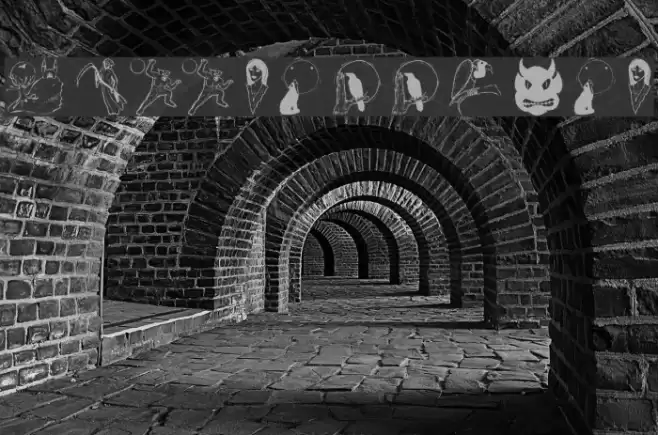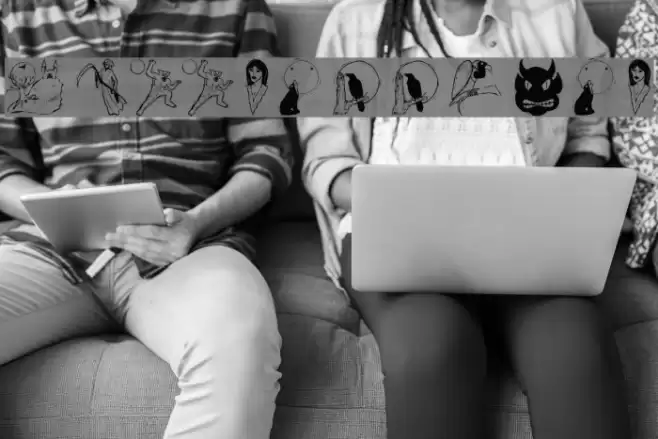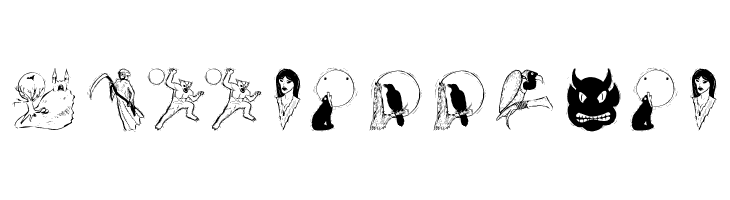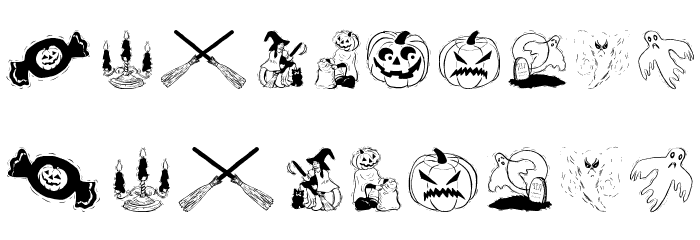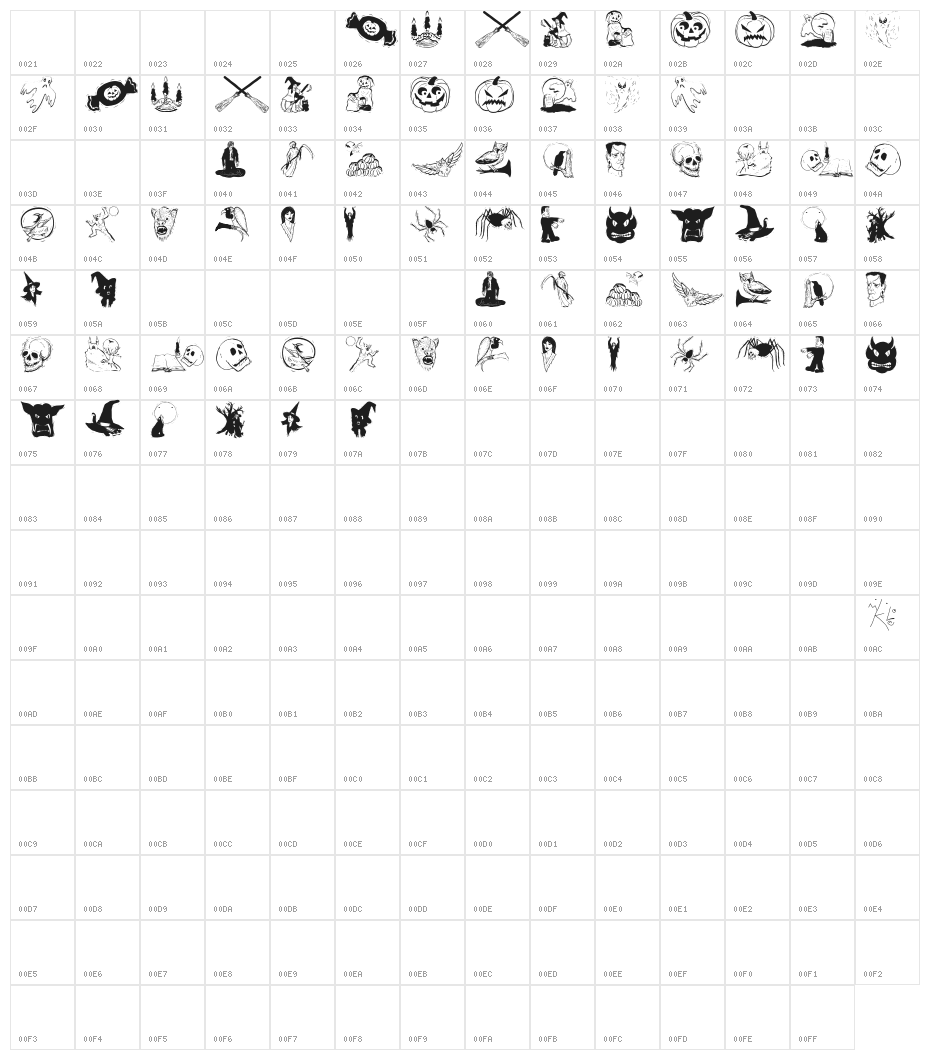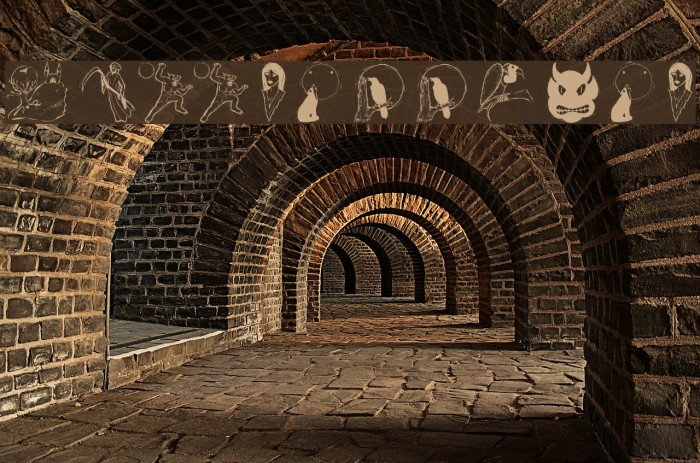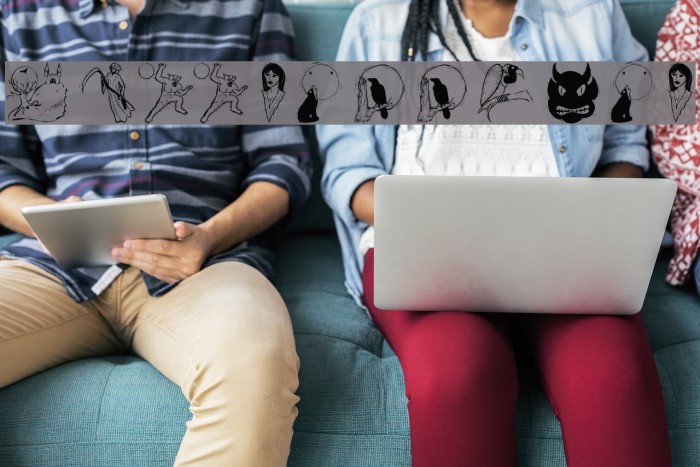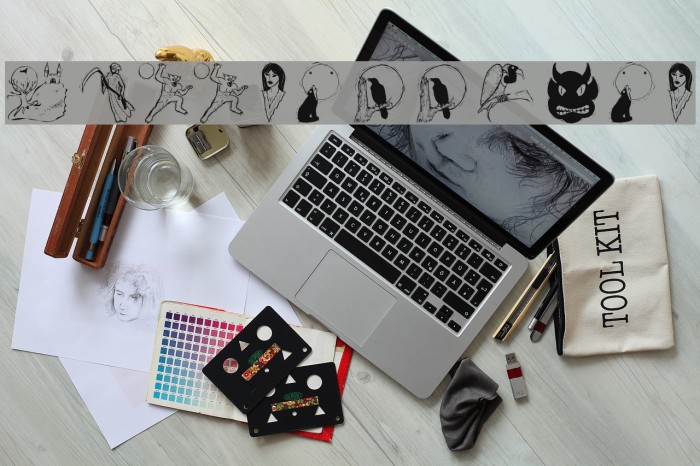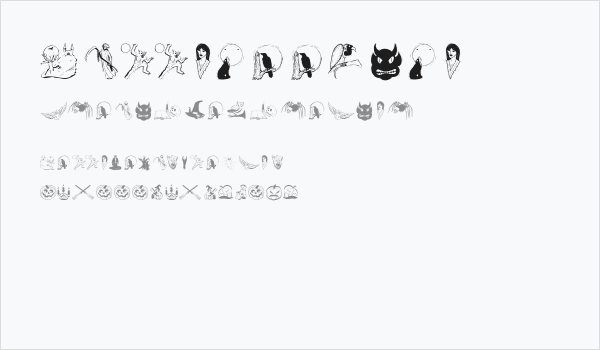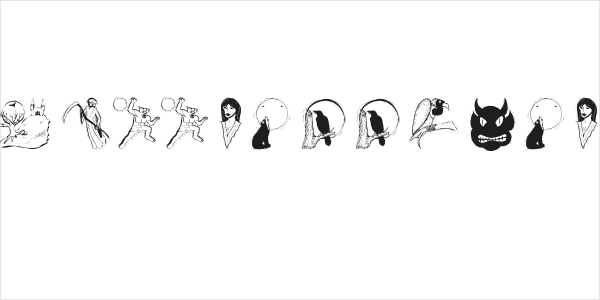
HalloweenTwo Font
HalloweenTwo Description
A decorative display font featuring hand-drawn Halloween-themed illustrations for each character, including pumpkins, witches, ghosts, skulls, bats, and other spooky motifs. The glyphs are highly detailed, playful, and vary in complexity, with both filled and outline styles present.
Whimsical Halloween icon font with detailed spooky illustrations from Halloween fonts.
- Proposed Projects: Halloween party invitations, event posters, seasonal greeting cards, themed social media graphics, children's activity sheets.
- Overall Style: Decorative, Playful, Thematic
- Use Case: Logos, Headlines, Themed graphics